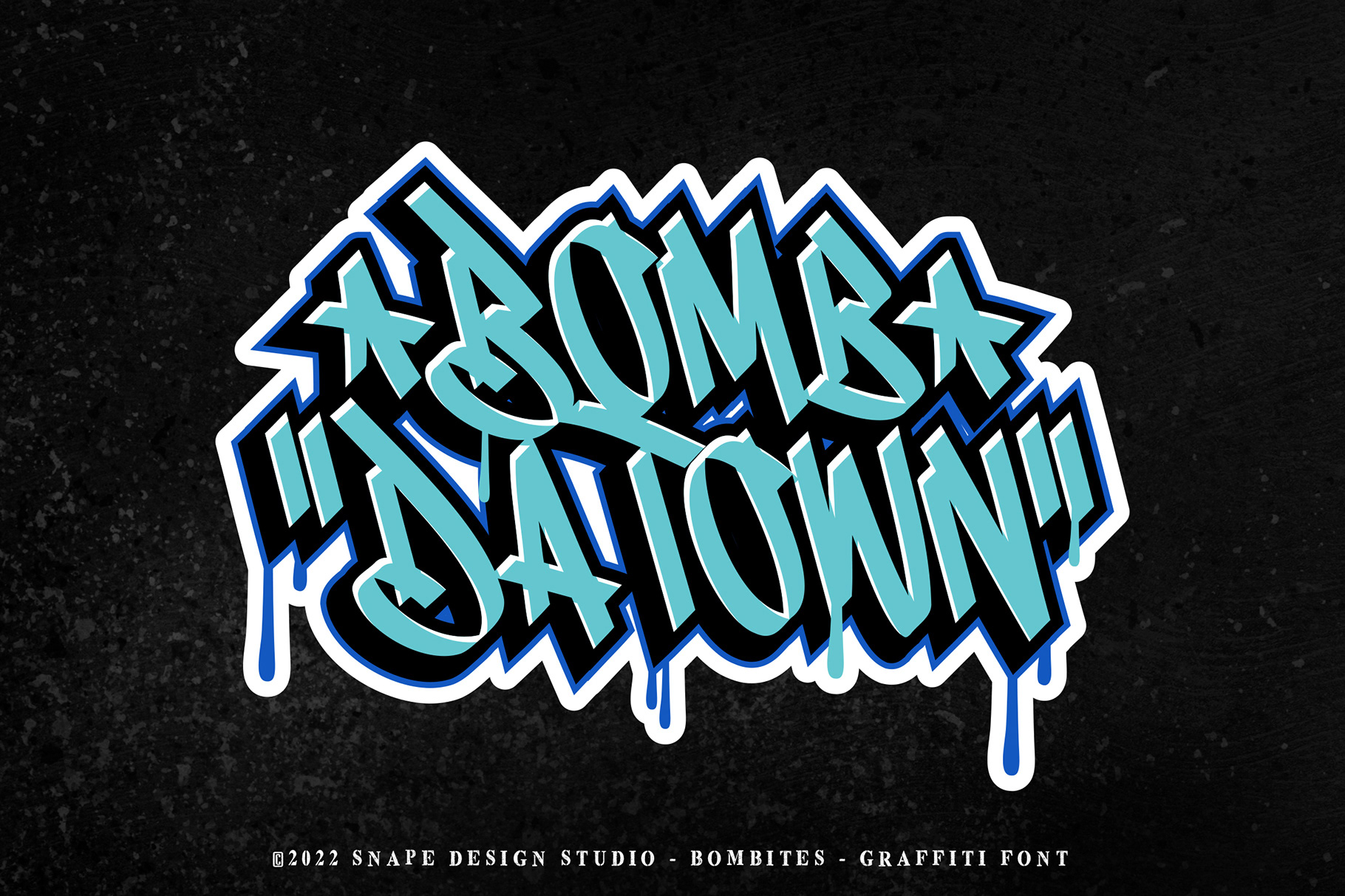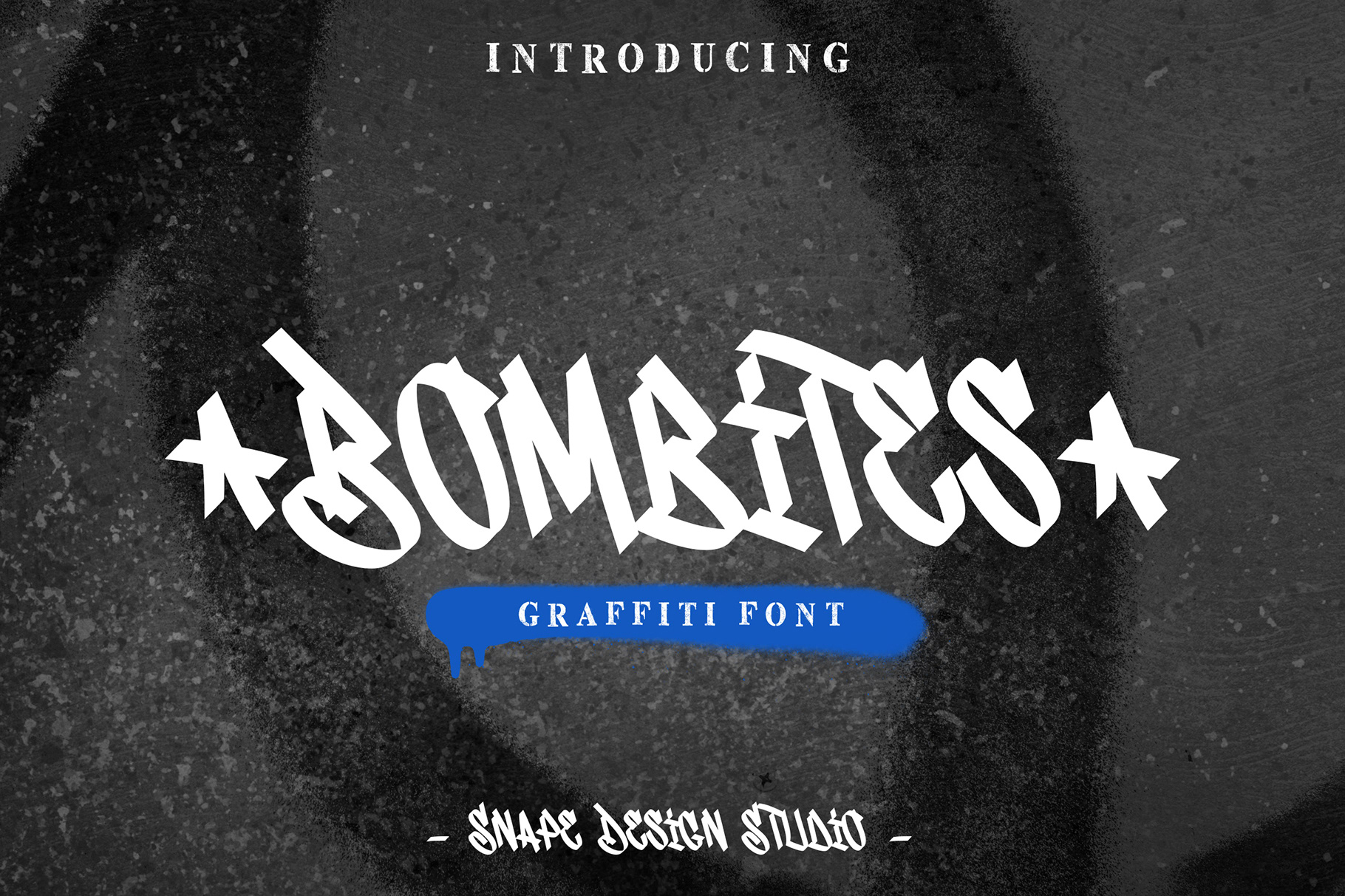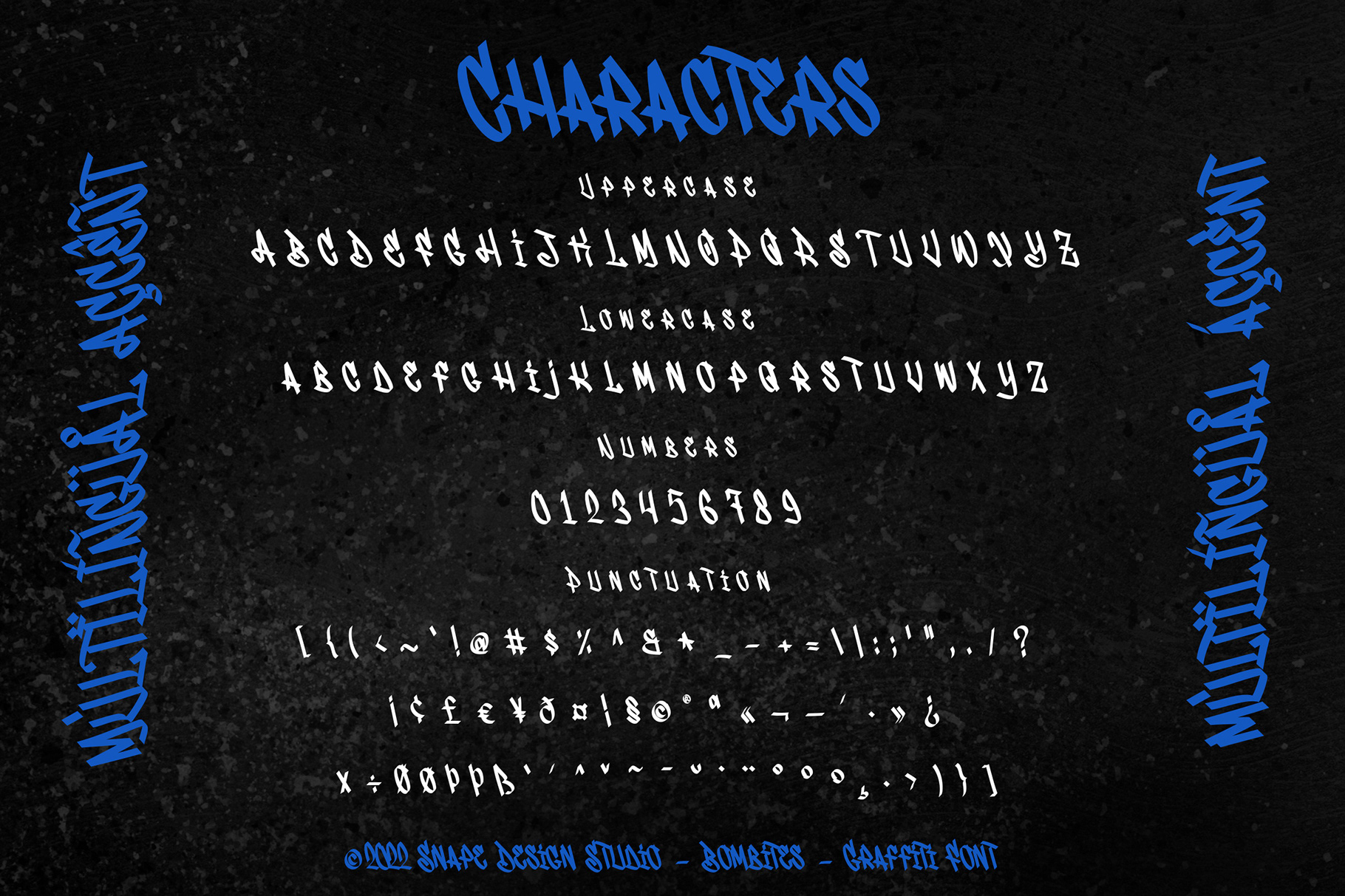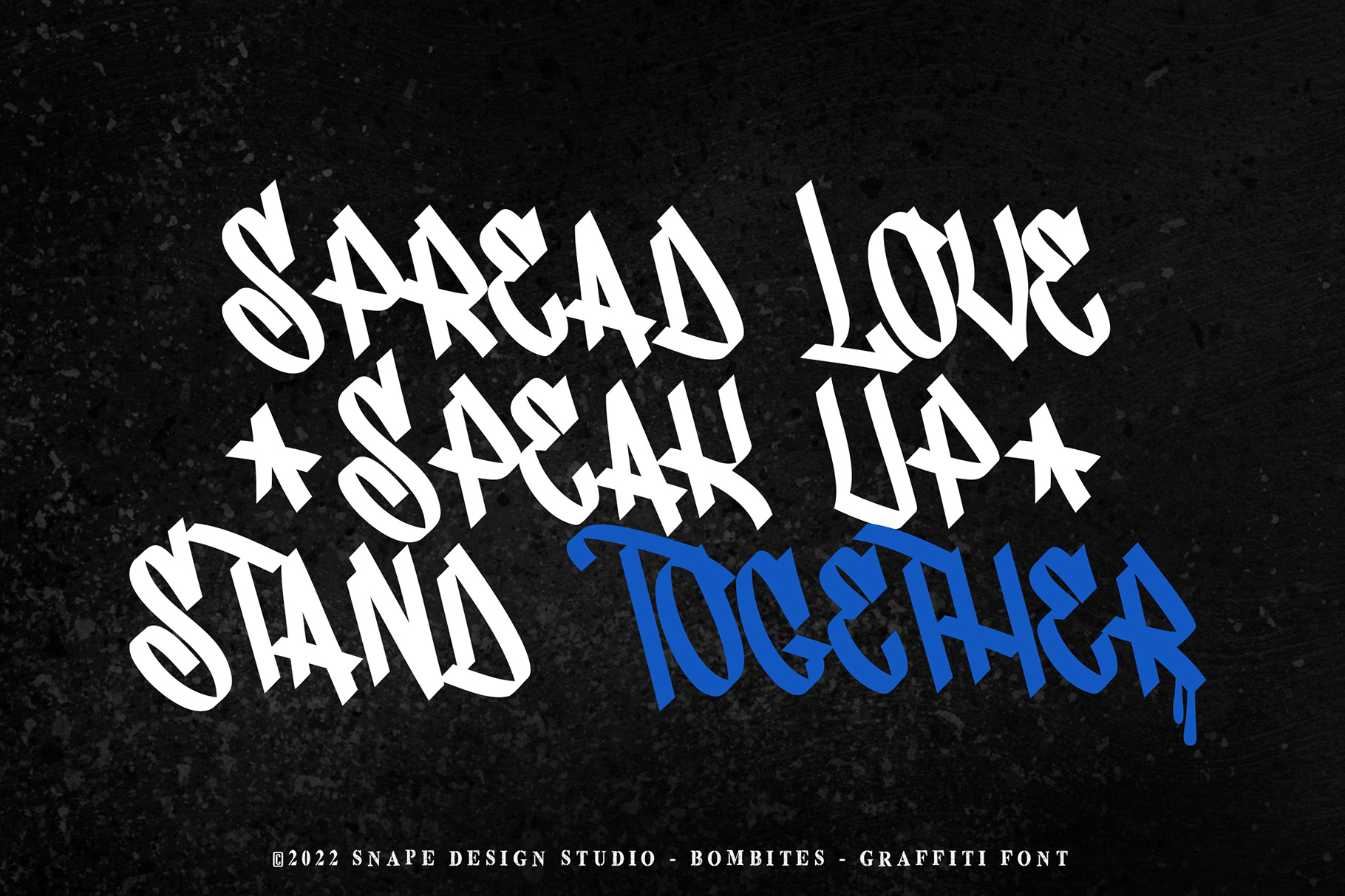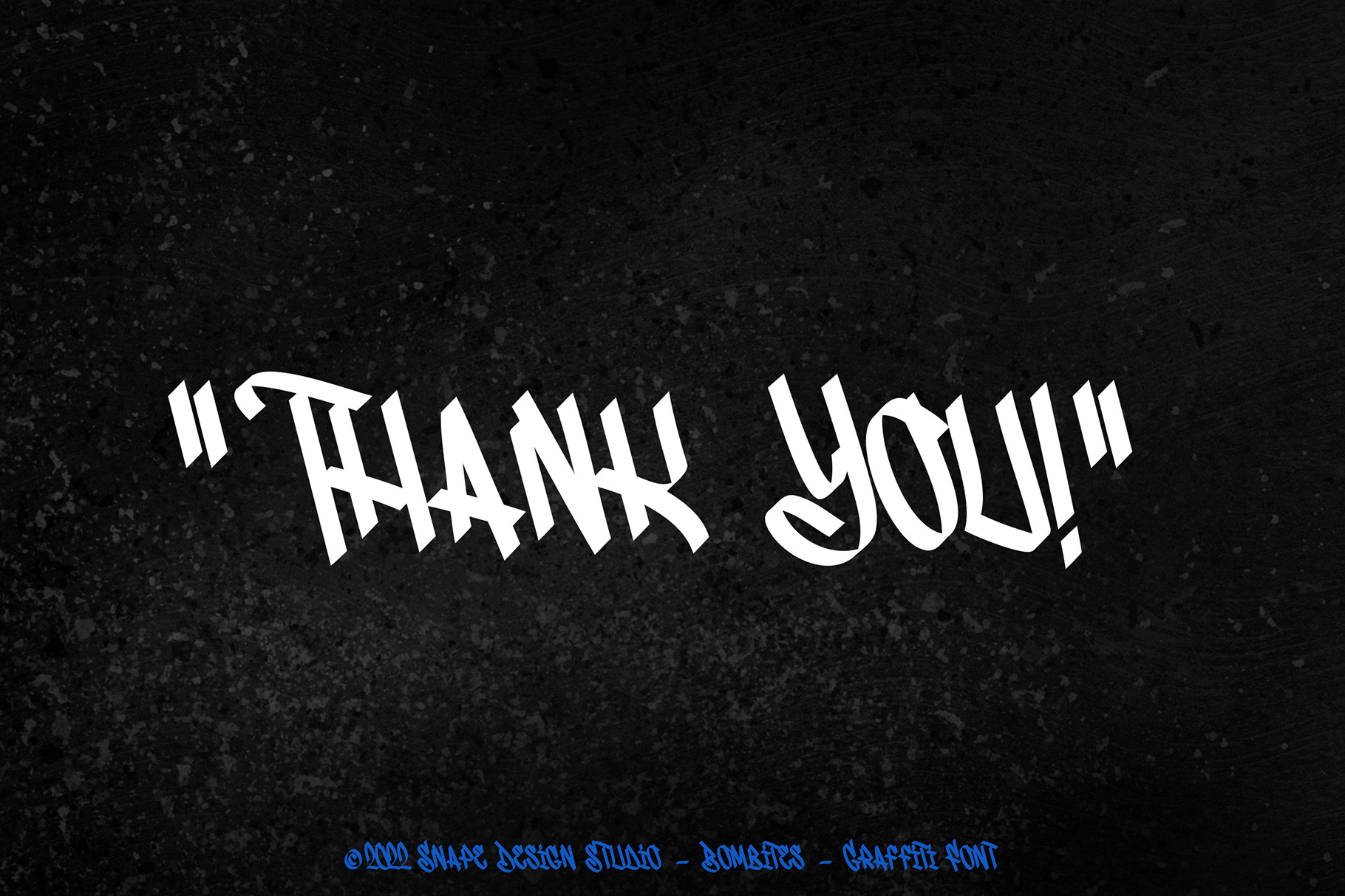
Bombites is a display font inspired by typical street art calligraphy style or graffiti tag, suitable for your design related to it. Also suitable for movie, documenter, film, logo, poster, game, book cover, headlines, title and many more projects. Add this font to your creative ideas and notice how it will make them stand out!